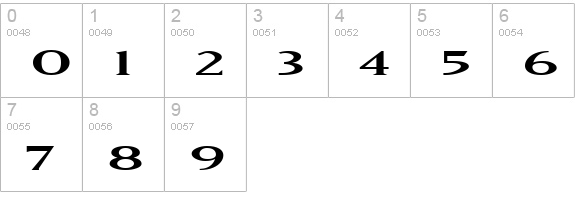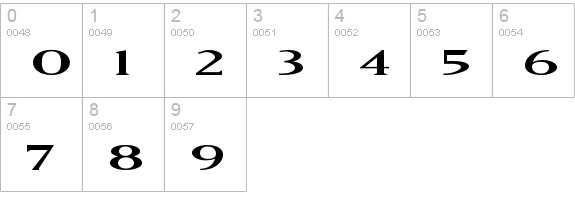
MatrixWideLining Regular is the standard, neutral variant in the MatrixWideLining typeface family \xE2\x80\x94 well suited to general body text, paragraphs, and standard typographic work.
MatrixWideLining Regular font is a modern and versatile typeface that exudes professionalism and sophistication. Its clean lines and wide letter spacing make it perfect for a variety of design projects, from branding to editorial layouts. The font's balanced proportions and sleek appearance give it a contemporary edge that is sure to elevate any design it is used in. What's even better is that MatrixWideLining Regular font is available for free download at FontsMarket.com. This means you can easily access this high-quality typeface without any cost, making it a valuable addition to your font library. Whether you're a graphic designer, a web developer, or a creative enthusiast, MatrixWideLining Regular font is a must-have for your next project. Download it now and start creating stunning designs with ease and style.